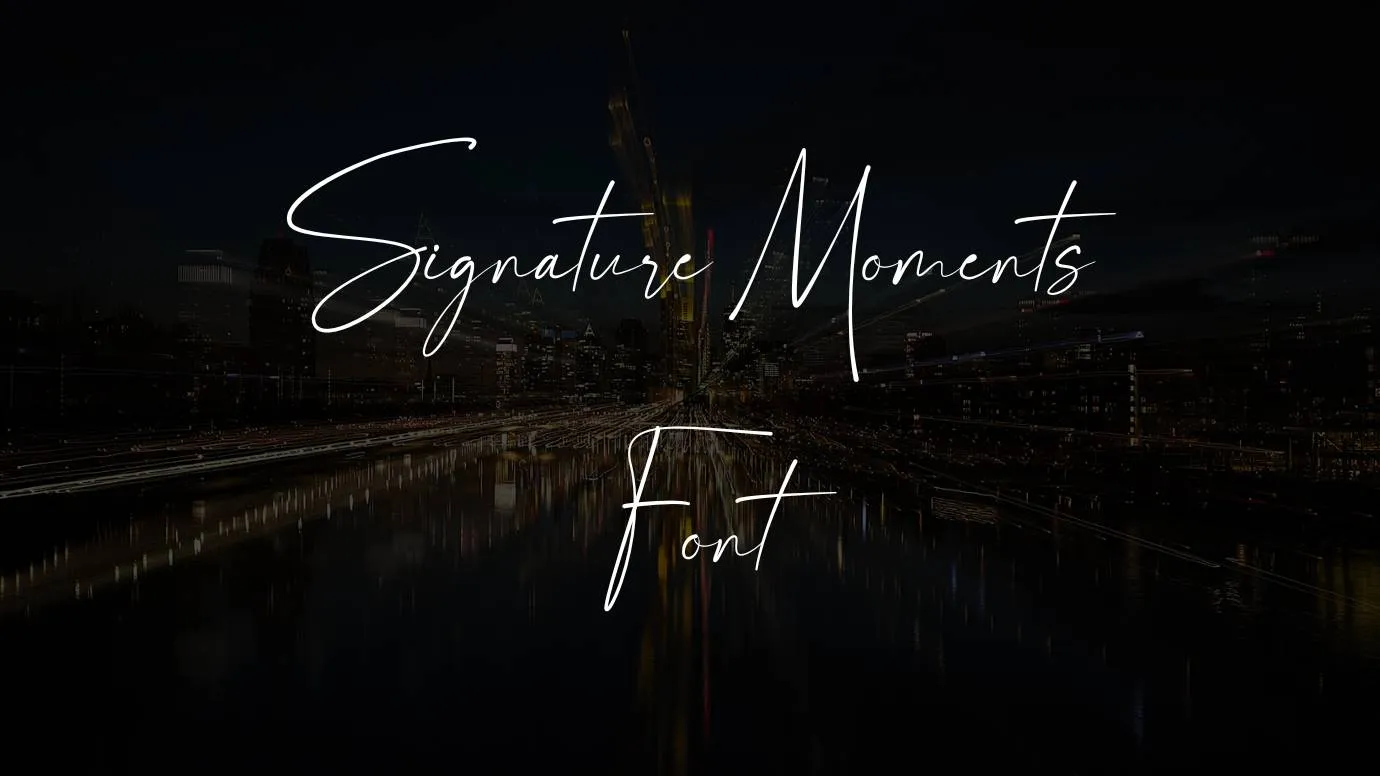
Signature Moments Font Family is a unique handwritten font family with elegant look swashes. This stylish typeface was created by Hadjar Creative for the first time. The endearing texture of this font has many features.
The look of this unique handwritten font is pleasing and fascinating that’s why it is popular among official typographic designers. The alternative fonts to this typeface are suitable for pairing with this font like songstar font.
| Type | Handwritten |
| Designer | Hadjar Creative |